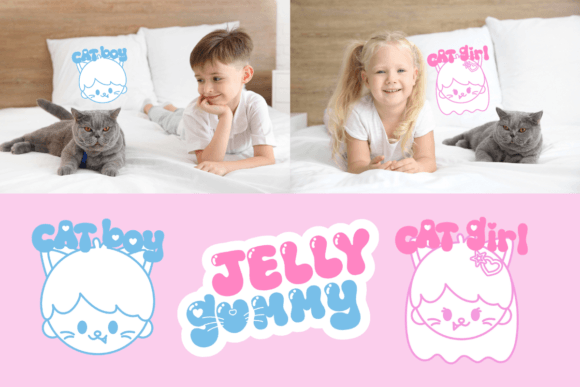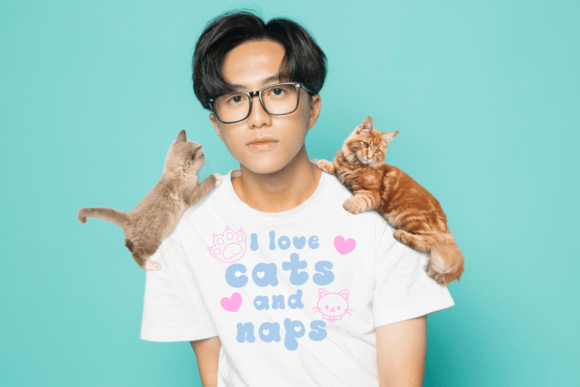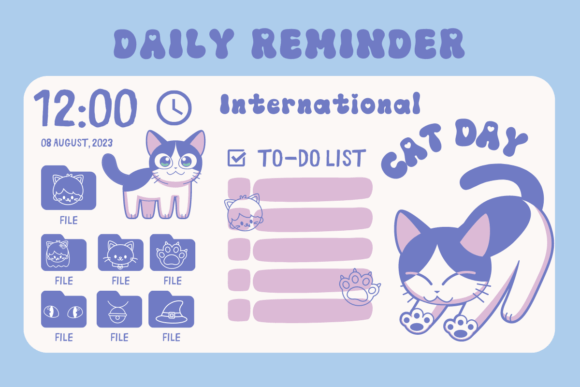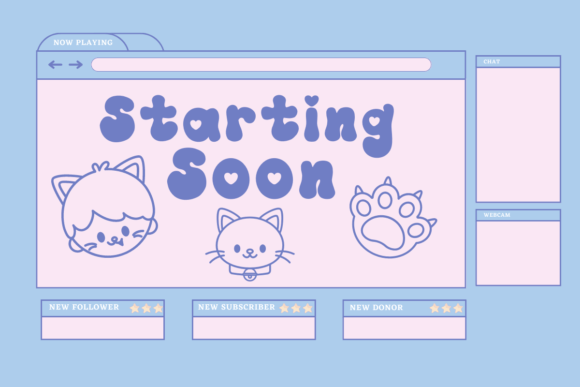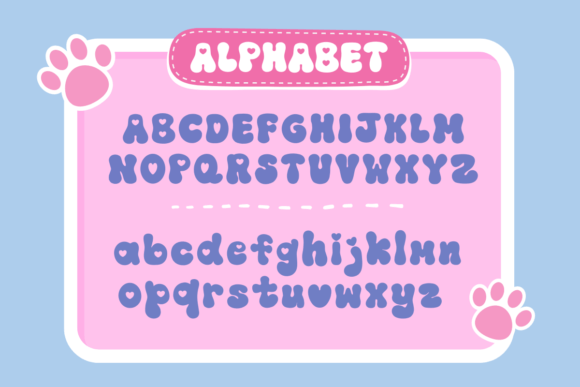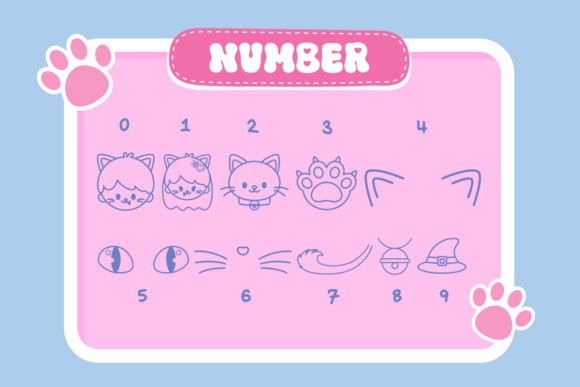
Unleash the Groovy Spirit: Discover the Purr-fect Font for Retro Designs
Remember the thrill of rummaging through your grandfather’s attic, uncovering vintage posters and retro advertisements? That’s where the magic happens for designers – in the realm of nostalgic inspiration. And for those who crave a dash of whimsy in their designs, the search is over. Say hello to the Cat Boy Font, a delightful display font that embodies the carefree spirit of the ’60s and ’70s.
This charming font is designed to add a playful touch to any project, from posters and merchandise to social media graphics. With its funky curves and retro vibes, the Cat Boy Font is a valuable addition to any designer’s toolkit. Whether you’re working on a campaign for a vintage clothing brand or creating a social media post for a music festival, this font is sure to bring a smile to your audience’s faces.
Cat Boy Font Key Features
- Font Family: Cat Boy Font is a unique, hand-drawn font family with a playful and whimsical feel.
- Unique Characteristics: The Cat Boy Font features distinctive, hand-drawn letterforms with a mix of bold and delicate lines, creating a charming and eye-catching visual effect.
Designer Review: Cat Boy Font
I recently had the chance to work with the Cat Boy Font, and I must say it’s a unique addition to any design project. ✨ Here are some things that really stood out to me.
- Hand-drawn charm: The font has a distinct hand-drawn feel that gives it a lot of character and personality.
- Fun and playful: The Cat Boy Font is perfect for projects that need a lighthearted and whimsical touch.
- Good legibility: Despite its playful nature, the font is still easy to read and understand.
However, there are a few limitations to consider ⚠️.
- Limited font weights: The Cat Boy Font only comes in a few different weights, which may limit its use in certain design situations.
- Lack of italic and bold styles: While the font has a lot of character, it would be nice to see more variation in styles, such as italic and bold.
- Not suitable for body text: Due to its playful nature and limited legibility, I wouldn’t recommend using the Cat Boy Font for large blocks of body text.
Overall, the Cat Boy Font is a fun and charming addition to any design project. While it has its limitations, it’s perfect for projects that need a touch of whimsy and personality.
Some tips for getting the most out of the Cat Boy Font include using it for whimsical or playful designs, such as children’s books or cartoon characters. You can also use it to add a touch of nostalgia or retro flair to your designs.